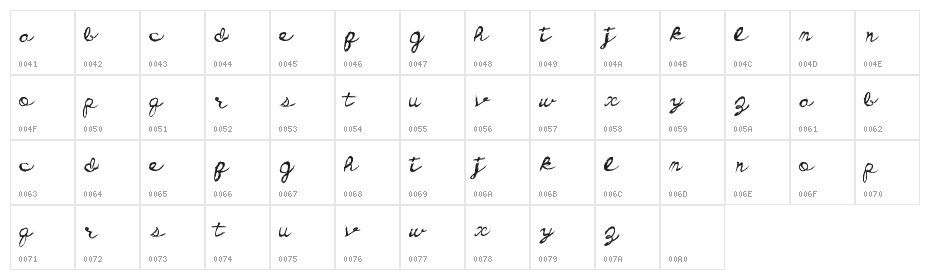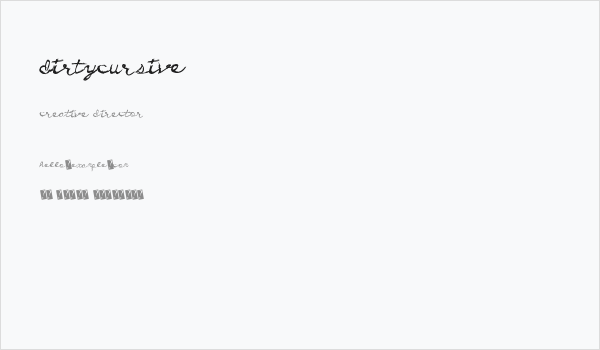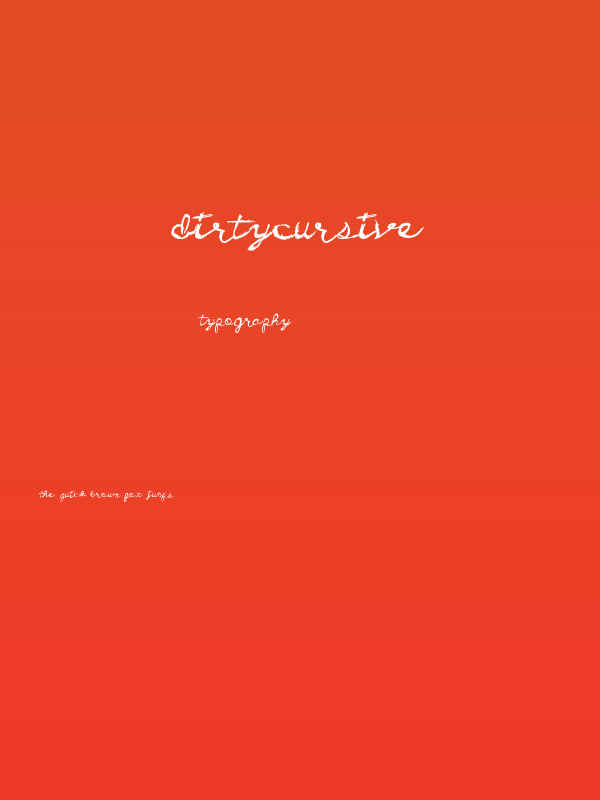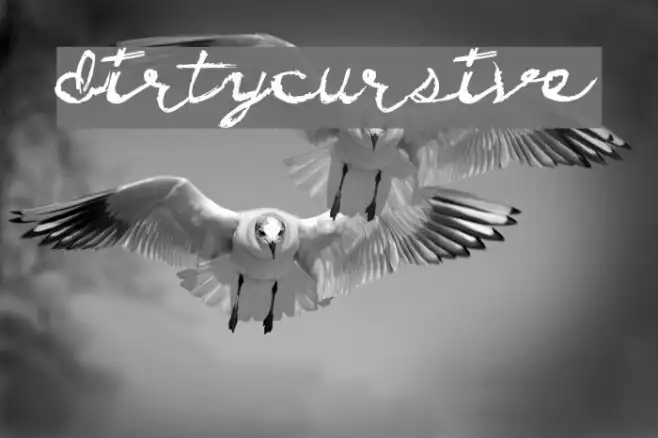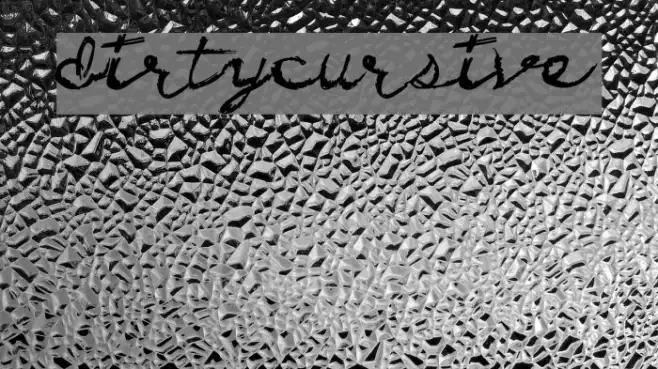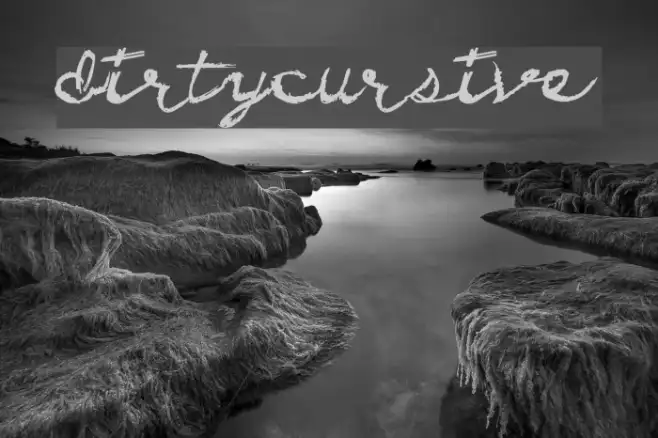
DirtyCursive Font
DirtyCursive Description
This font features a unique, distressed cursive style that mimics the look of handwriting with a rough, textured appearance. The letters are connected in a flowing manner, yet each character maintains a distinct individuality due to the irregular edges and varying stroke thickness. This gives the font a dynamic and energetic feel, reminiscent of hastily written notes or graffiti. The uppercase and lowercase letters are consistent in style, maintaining the same rugged texture throughout. This font lacks traditional special characters, instead using placeholders, which adds to its unconventional charm.
| Use Case | Logos, Posters, Artistic projects |
| Proposed Projects | Ideal for projects that require a personal, edgy touch, such as album covers, streetwear branding, or urban-themed posters. |